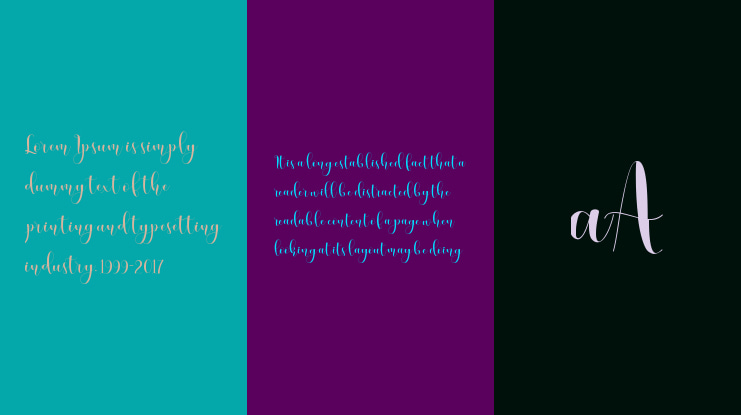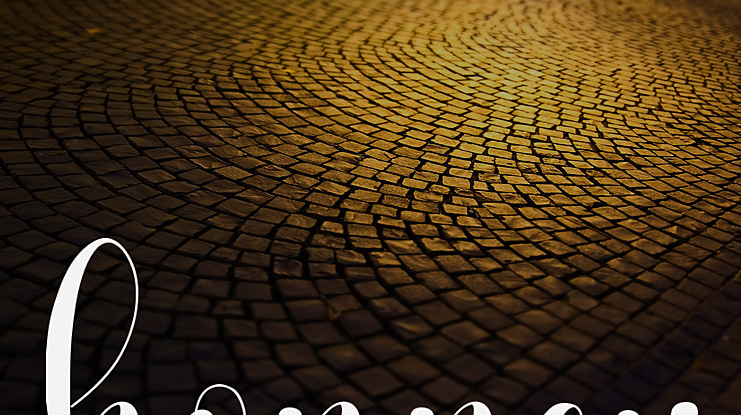
honney Font
say hello to honney ! honney is a unique, cute and Lovely Script . It's hand look style makes perfect to use for invitation, stationery, wedding designs, social media posts, advertisements, product packaging, product designs, label, photography, watermark, special events,logos, signatures, quotes, badges, labels, packaging design, blog headlines or simply use it in your next design project.
You can mix and match with Opentype feature: -Ekstras 51 ligature -More than 369 of glyphs -Alternates -Stylistic sets from ss01 to ss06
Using honney definitely make your text stand out.The alternative honney comes includes full set of gorgeous uppercase and lowercase letters, multilingual support, punctuation, and stylistic set gorgeous extras from a to z and beginning and ending numerals swashes.Perfect for DIY projects, greeting cards, labels, quotes, posters, wall art, branding, packaging, websites, photo & photography overlays, signs, window art, scrapbooking, tags and so much more!